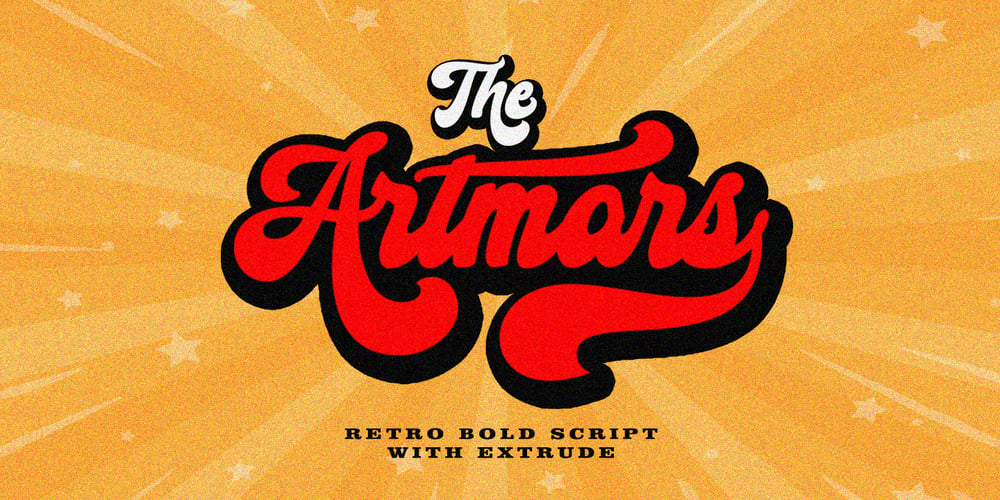
The Artmars Script
The Artmars Script font
The Artmars Script Font Family was designed by Muhammad Taufik and published by Rastype Studio. The Artmars Script contains 2 styles and family package options. The Artmars Script is inspired by a retro style in combination with hand lettering style. The Artmars Script came with OpenType features such stylistic alternates, stylistic sets & ligatures good for logotype, posters, badges, book covers, tshirt designs, handwritten quotes, product packaging, header, poster, merchandise, social media & greeting cards.To enable the OpenType Stylistic alternates, you need a program that supports OpenType features such as Adobe Illustrator CS, Adobe Indesign & CorelDraw X6-X7, Microsoft Word 2010 or later versions.How to access all alternative characters, using Windows Character Map with Photoshop:https://www.youtube.com/watch?v=Go9vacoYmBwHow to access all alternative characters using Adobe Illustrator:https://www.youtube.com/watch?v=XzwjMkbB-wQThe Artmars Script is coded with PUA Unicode, which allows full access to all the extra characters without having special designing software. Mac users can use Font Book, and Windows users can use Character Map to view and copy any of the extra characters to paste into your favourite text editor/app.Thanks so much for looking and please let me know if you have any questions!